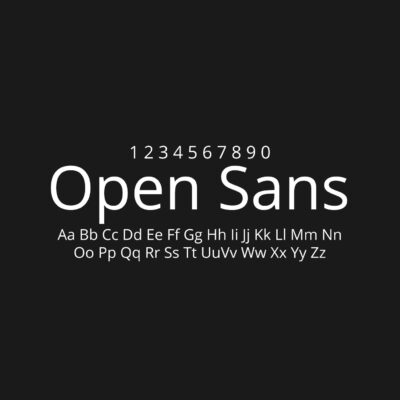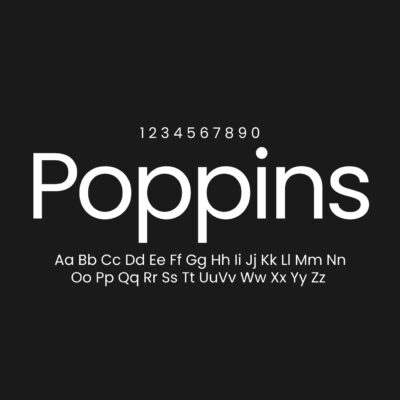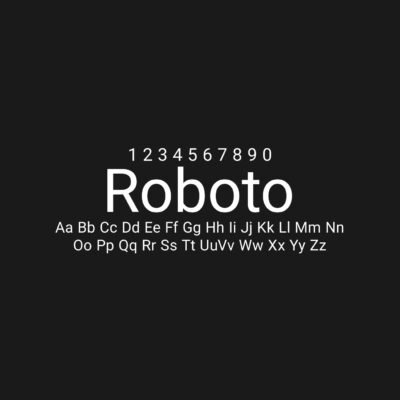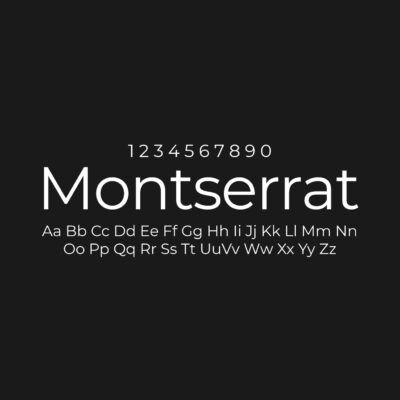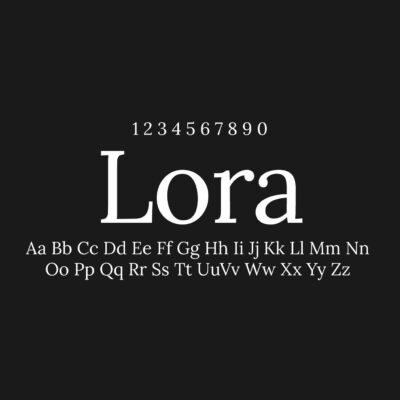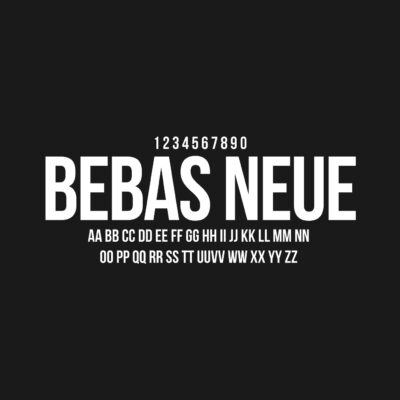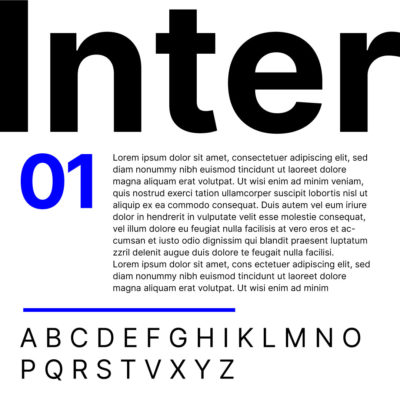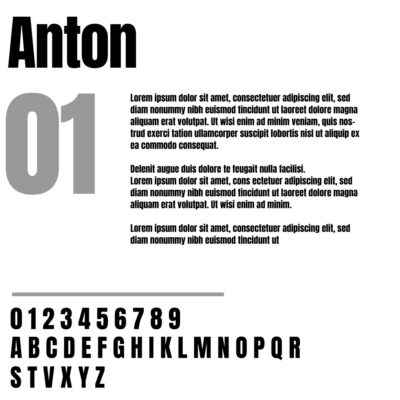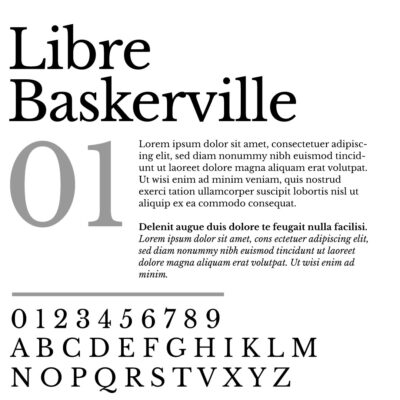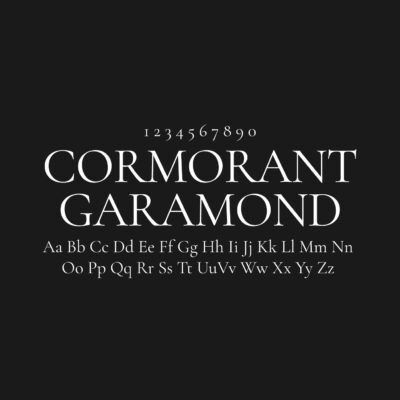
What Types of Free Font Families Are Available for Designers?
Free font families are essential resources for designers working on branding, websites, posters, social media graphics, packaging, presentations, UI design and editorial layouts. A well-chosen font can change the entire mood of a design, improve readability and make a project feel more polished.
There are many different types of free font families available today, from clean sans serif fonts to elegant serif fonts, expressive script fonts, bold display fonts and technical monospace typefaces. Each category has its own visual personality and works better for different design needs.
Below, you can explore the main types of free font families available for designers, along with popular font examples worth downloading, testing or adding to your creative library.
Sans Serif Font Families
Sans serif fonts are one of the most useful font categories for modern designers. They do not have the small decorative strokes found in serif fonts, which gives them a clean, simple and contemporary appearance.
Free sans serif font families are widely used in websites, mobile apps, brand identities, SaaS products, corporate presentations, social media templates and UI design systems. They are usually readable, flexible and easy to pair with other typefaces.
Some popular free sans serif font families include:
Inter
Inter is one of the strongest free font choices for UI design, websites, dashboards and digital products. It has excellent readability on screens and works well for both body text and interface elements.
Roboto
Roboto is a highly practical sans serif font family used across websites, apps, documents and Android-related design systems. It has a neutral, modern look and many useful weights.
Open Sans
Open Sans is a clean and friendly sans serif font. It is especially useful for websites, blogs, landing pages and readable body text.
Montserrat
Montserrat is a geometric sans serif font with a bold, urban feeling. It works well for logos, headings, posters, social media graphics and modern brand identities.
Poppins
Poppins has a geometric structure with rounded forms. It is popular for startup branding, UI design, landing pages and clean modern layouts.
Manrope
Manrope is a modern sans serif family with a soft geometric character. It feels clean but slightly warmer than many corporate sans serif fonts.
DM Sans
DM Sans is a minimal, friendly sans serif font that works well for product interfaces, portfolios, websites and presentation design.
Plus Jakarta Sans
Plus Jakarta Sans is a modern sans serif with a professional, slightly geometric look. It is a strong choice for tech websites, finance brands and clean editorial layouts.
Satoshi
Satoshi is a contemporary sans serif family with a stylish, neutral look. It is useful for branding, websites, portfolios and modern design systems.
General Sans
General Sans is a clean, modern sans serif font family that works well for creative portfolios, agencies, landing pages and editorial-style websites.
Sans serif fonts are usually the safest starting point when a designer needs a font that feels modern, readable and flexible.
Serif Font Families
Serif fonts have small strokes at the ends of letters. These details give them a more classic, editorial or elegant appearance. Free serif font families are useful for magazines, blogs, book covers, lifestyle branding, wedding designs, luxury visuals and long-form reading.
Some serif fonts feel traditional and serious, while others feel fashionable, artistic or premium.
Some popular free serif font families include:
Libre Baskerville
Libre Baskerville is a readable serif font inspired by classic book typography. It works well for articles, blogs, essays and editorial layouts.
Lora
Lora is a modern serif font with a warm and literary feeling. It is a strong choice for blogs, storytelling websites, quotes and lifestyle design.
Cormorant Garamond
Cormorant Garamond is elegant and refined. It works beautifully for fashion branding, wedding invitations, magazine titles and luxury-style layouts.
Playfair Display
Playfair Display is a high-contrast serif font often used for stylish headings, editorial titles, fashion graphics and elegant branding.
EB Garamond
EB Garamond is a classic serif family suitable for books, essays, long-form content and traditional editorial typography.
Merriweather
Merriweather is designed for comfortable screen reading. It is useful for blogs, news-style layouts and text-heavy websites.
Source Serif 4
Source Serif 4 is a professional serif family with strong readability and a polished editorial look.
Bodoni Moda
Bodoni Moda is a high-contrast serif font with a fashionable, premium appearance. It works best for headlines, logos and luxury visuals.
Fraunces
Fraunces is expressive, soft and characterful. It can be used for packaging, editorial headlines, creative branding and playful premium designs.
Serif fonts are ideal when a project needs elegance, authority, tradition or a more editorial tone.
Slab Serif Font Families
Slab serif fonts have thicker, block-like serifs. They feel stronger, bolder and more structured than traditional serif fonts. Free slab serif fonts are useful for posters, packaging, branding, sports graphics, magazine covers and bold headlines.
Some popular free slab serif font families include:
Roboto Slab
Roboto Slab is a practical slab serif font that combines readability with a strong structure. It works well for headlines, websites and editorial layouts.
Zilla Slab
Zilla Slab has a distinctive personality and works well for branding, posters and creative editorial design.
Bitter
Bitter is a slab serif font designed for comfortable reading on screens. It is useful for blogs, articles and long-form web typography.
Arvo
Arvo has a geometric slab serif style and works well for posters, headings and structured layouts.
Alfa Slab One
Alfa Slab One is bold and heavy. It is best for large titles, retro-style posters, thumbnails and display graphics.
Slab serif fonts are a good choice when a design needs strength, confidence and readability at the same time.
Display Font Families
Display fonts are designed to attract attention. They are usually more expressive, decorative or unusual than standard text fonts. Free display font families are best for posters, thumbnails, event graphics, album covers, logos, banners and large website hero titles.
Display fonts should usually be used for short text, not long paragraphs.
Some popular free display font families include:
Anton
Anton is a strong sans serif display font with a heavy structure. It works well for headlines, banners and high-impact web sections.
Bebas Neue
Bebas Neue is a tall, condensed display font. It is excellent for posters, headlines, YouTube thumbnails, sports graphics and bold social media visuals.
Oswald
Oswald is a condensed sans serif font that works well for titles, editorial layouts, posters and website headings.
Archivo
Archivo is powerful. It is suitable for campaign graphics, landing page headers and visual identities that need impact.
Bungee
Bungee has a playful and urban display style. It can be used for signage-inspired designs, posters and bold branding.
Righteous
Righteous has a retro geometric feeling. It works well for music graphics, gaming-style visuals and stylized headlines.
Shrikhand
Shrikhand is bold, decorative and full of personality. It is useful for playful packaging, posters and expressive branding.
Tilt Warp
Tilt Warp is a modern display font with a dynamic, experimental feeling. It can work well in digital posters and creative web design.
Display fonts are best when the main goal is visual impact.
Script Font Families
Script fonts are inspired by handwriting, calligraphy and brush lettering. They are expressive, personal and decorative. Free script fonts are commonly used in logos, wedding invitations, greeting cards, quotes, packaging, beauty branding and social media graphics.
Some popular free script font families include:
Great Vibes
Great Vibes is an elegant calligraphy-style script font. It works well for wedding invitations, luxury details, signatures and decorative headings.
Pacifico
Pacifico is a casual retro script font. It is useful for friendly branding, food packaging, social media graphics and playful logos.
Satisfy
Satisfy has a smooth brush-script look. It works well for quotes, casual branding and lifestyle visuals.
Dancing Script
Dancing Script is informal and friendly. It can be used for invitations, social posts, handwritten-style titles and personal projects.
Allura
Allura is elegant and delicate. It works well for wedding design, beauty branding and feminine visual identities.
Yellowtail
Yellowtail has a retro sign-painting style. It is useful for badges, restaurant branding, vintage graphics and casual logos.
Sacramento
Sacramento is light and graceful. It works well for minimal invitations, signatures and refined decorative typography.
Kaushan Script
Kaushan Script has a brush-lettering style with more energy. It can be used for posters, logos and bold quote graphics.
Script fonts should be used carefully because many of them become hard to read at small sizes.
Handwritten Font Families
Handwritten fonts are more casual than formal script fonts. They often look natural, friendly, imperfect or playful. Free handwritten font families are useful for children’s designs, classroom materials, quote posts, packaging, social media graphics and casual brand identities.
Some popular free handwritten font families include:
Caveat
Caveat is a natural handwritten font that works well for notes, quotes, labels and friendly visual content.
Patrick Hand
Patrick Hand has a clean handwritten style. It is useful for education materials, casual websites and playful graphics.
Gloria Hallelujah
Gloria Hallelujah is expressive and informal. It works well for posters, quote graphics and fun social content.
Indie Flower
Indie Flower has a soft handwritten look. It is suitable for personal projects, kids’ content and casual design work.
Shadows Into Light
Shadows Into Light is narrow, friendly and handwritten. It can be used for informal titles, notes and social media visuals.
Permanent Marker
Permanent Marker has a bold marker-style look. It works well for energetic posters, street-style graphics and loud headlines.
Handwritten fonts are best when a design needs to feel human, warm or informal.
Monospace Font Families
Monospace fonts use equal spacing for every character. They are strongly associated with coding, terminals, technical interfaces and structured layouts. Free monospace font families are useful for developer portfolios, documentation, dashboards, editorial design and tech branding.
Some popular free monospace font families include:
JetBrains Mono
JetBrains Mono is a highly readable monospace font designed for developers. It is useful for code editors, documentation and technical websites.
Fira Code
Fira Code is popular among developers because it supports programming ligatures. It works well for code previews, developer tools and technical content.
IBM Plex Mono
IBM Plex Mono has a professional and slightly editorial tone. It is useful for tech branding, data-heavy layouts and documentation.
Space Mono
Space Mono has a distinctive retro-futuristic style. It works well for posters, experimental layouts and tech-inspired branding.
Source Code Pro
Source Code Pro is a clean monospace family designed for coding environments. It is practical, readable and neutral.
Roboto Mono
Roboto Mono is a simple and flexible monospace font that works well for UI details, code snippets and technical layouts.
Monospace fonts are more niche than sans serif fonts, but they are very useful when a project needs a technical or precise feeling.
Geometric Font Families
Geometric fonts are based on simple shapes like circles, squares and triangles. They often feel modern, balanced and minimal. Free geometric font families are popular in branding, logo design, architecture portfolios, app interfaces and startup websites.
Some popular free geometric font families include:
Montserrat
Montserrat is one of the most recognizable free geometric sans serif fonts. It is strong for headings, logos and social media graphics.
Poppins
Poppins has a clean geometric structure and many weights. It works well for UI design, landing pages and modern brand identities.
Urbanist
Urbanist is minimal, clean and contemporary. It is useful for websites, portfolios, branding and editorial layouts.
Outfit
Outfit is a modern geometric sans serif with a simple and polished look. It works well for tech products, SaaS pages and clean design systems.
Jost
Jost is inspired by geometric sans serif traditions. It is a good free alternative for designs that need a Futura-like feeling.
League Spartan
League Spartan is bold, geometric and strong. It works well for posters, headings and logo concepts.
Quicksand
Quicksand is a rounded geometric sans serif. It feels softer and friendlier than stricter geometric fonts.
Geometric fonts are especially useful when a design needs to feel clean, modern and structured.
Rounded Font Families
Rounded fonts have softened corners and smooth letterforms. They feel friendly, approachable and modern. Free rounded font families are useful for app design, children’s brands, food packaging, wellness brands, educational graphics and social media templates.
Some popular free rounded font families include:
Nunito
Nunito is a rounded sans serif font with a friendly and readable structure. It works well for websites, apps and soft brand identities.
Quicksand
Quicksand is geometric and rounded, making it useful for playful but clean designs.
Varela Round
Varela Round is simple, soft and readable. It works well for web design, UI text and friendly branding.
Comfortaa
Comfortaa has a very rounded geometric style. It is useful for playful logos, children’s brands and casual visuals.
M PLUS Rounded 1c
M PLUS Rounded 1c is a rounded font family with a clean digital feeling. It works well for UI design and friendly interface typography.
Rounded fonts are a good choice when a standard sans serif feels too cold or corporate.
Condensed Font Families
Condensed fonts have narrow letterforms, allowing designers to fit more text into limited space. They are useful for posters, magazine covers, banners, packaging, sports graphics and bold headlines.
Some popular free condensed font families include:
Bebas Neue
Bebas Neue is one of the most useful free condensed fonts for strong titles and posters.
Oswald
Oswald is practical and readable, making it suitable for web headings, editorial design and banners.
Barlow Condensed
Barlow Condensed has a modern and slightly technical look. It works well for UI headings, dashboards and brand systems.
Roboto Condensed
Roboto Condensed is clean and flexible. It is useful for websites, app interfaces and information-heavy layouts.
Archivo Condensed
Archivo Condensed is strong, compact and readable. It works well for headlines, posters and editorial layouts.
Teko
Teko is a tall, condensed font with a sharp modern feeling. It is useful for sports graphics, gaming visuals and bold titles.
Condensed fonts are especially strong when used in large sizes.
Variable Font Families
Variable fonts allow designers to adjust weight, width, slant or optical size within a single font file. They are especially useful for responsive web design, design systems and typography that needs flexibility.
Recent typography coverage and research continue to highlight variable fonts as an important direction because they can support continuous design axes such as weight, width, slant and optical size.
Some useful free variable font families include:
Inter Variable
Inter Variable is excellent for UI design, websites and product interfaces.
Roboto Flex
Roboto Flex offers a wide range of typographic controls and is useful for responsive web design.
Recursive
Recursive is a flexible variable font with both casual and linear styles. It is useful for coding, UI and creative editorial layouts.
Fraunces
Fraunces is an expressive variable serif font with a playful editorial personality.
Anybody
Anybody is a flexible display and sans serif font family that can be used for experimental layouts and bold typography.
Source Sans 3 Variable
Source Sans 3 is a professional sans serif family suitable for interfaces, documents and web typography.
Google Sans Flex
Google Sans Flex has gained attention as a highly flexible variable font family with advanced controls for weight, width and optical adjustments.
Variable fonts are especially useful for designers who work on modern websites and flexible identity systems.
Blackletter and Gothic Font Families
Blackletter fonts have a historic, dramatic and ornamental appearance. They are often used in tattoo lettering, music graphics, streetwear, beer labels, vintage posters and dark editorial designs.
Some free blackletter or gothic-style font families include:
UnifrakturCook
UnifrakturCook has a traditional blackletter appearance and works well for historic or decorative titles.
UnifrakturMaguntia
UnifrakturMaguntia is another strong blackletter option for gothic-style typography.
Pirata One
Pirata One has a sharp decorative style that can work for posters, labels and fantasy-inspired design.
Grenze Gotisch
Grenze Gotisch blends gothic and contemporary elements, making it useful for editorial titles and dark visual identities.
New Rocker
New Rocker has a gothic rock feeling and works well for band graphics, posters and tattoo-inspired visuals.
Blackletter fonts should usually be used for short words or titles because they are not ideal for long reading.
Retro and Vintage Font Families
Retro fonts are inspired by old signage, posters, packaging, advertisements and cultural design styles from previous decades. Free retro font families are useful for restaurant branding, music posters, badges, packaging, apparel graphics and nostalgic social media visuals.
Some popular free retro-style font families include:
Lobster
Lobster is a bold retro script font often used for food branding, badges and casual logo design.
Pacifico
Pacifico has a relaxed vintage script feeling and works well for friendly branding.
Righteous
Righteous has a retro geometric look, suitable for posters, music graphics and stylized headings.
Bungee
Bungee is inspired by urban signage and works well for bold retro display typography.
Limelight
Limelight has an Art Deco-inspired look, making it useful for cinema-style titles and vintage posters.
Monoton
Monoton has a neon-like decorative style that can work for nightlife, music and retro-futuristic visuals.
Retro fonts are useful when a design needs nostalgia, personality or a strong visual theme.
Best Free Font Families to Add First
For a strong free font library, designers should start with versatile families before moving into niche decorative fonts.
A good starter collection could include:
Sans serif: Inter, Roboto, Open Sans, Montserrat, Poppins, Manrope, DM Sans, Plus Jakarta Sans
Serif: Libre Baskerville, Lora, Cormorant Garamond, Playfair Display, EB Garamond, Merriweather, Source Serif 4
Display: Bebas Neue, Anton, Oswald, Archivo, Bungee, Righteous
Script: Great Vibes, Pacifico, Satisfy, Dancing Script, Allura
Handwritten: Caveat, Patrick Hand, Gloria Hallelujah, Permanent Marker
Monospace: JetBrains Mono, Fira Code, IBM Plex Mono, Space Mono, Source Code Pro
Rounded: Nunito, Quicksand, Varela Round, Comfortaa
Variable: Inter Variable, Roboto Flex, Recursive, Fraunces, Source Sans 3 Variable
This kind of collection gives designers enough variety for websites, logos, editorial layouts, social media graphics, posters and UI projects.
How Designers Should Choose a Free Font Family
The best free font family depends on the project. A clean sans serif may be perfect for a website, but too plain for a poster. A script font may look beautiful in a logo, but unreadable in a paragraph. A serif font may feel elegant in an editorial layout, but too formal for a tech startup.
Before choosing a font, designers should check:
- Is the font readable at small sizes?
- Does it include enough weights?
- Does it have italic styles?
- Does it support the required language and characters?
- Is it free for commercial use?
- Does it work for both web and print?
- Can it pair well with another font?
- Does it match the tone of the project?
A font family with multiple weights such as regular, medium, semibold and bold is usually more useful than a single-style decorative font.
Free Font Licensing
Free fonts do not all have the same license. Some fonts are free for personal use only, while others are free for commercial projects. Many fonts on Google Fonts are open source, but designers should still check the individual license before using or redistributing a font. Typewolf also notes that Google Fonts are generally released under open-source licenses such as the SIL Open Font License or Apache License, while still recommending that users check each individual license.
This is especially important for client work, logos, packaging, commercial websites, apps and products.
For everyday design work, fonts like Inter, Roboto, Open Sans, Montserrat, Poppins, Libre Baskerville, Lora, Bebas Neue, Great Vibes, JetBrains Mono and Nunito are strong starting points. For more expressive projects, display, script, blackletter and retro fonts can add personality and visual impact.
The best approach is to build a balanced font library: a few clean sans serif families, a few readable serif families, several display fonts, one or two script fonts, a good monospace family and some decorative options for special projects.